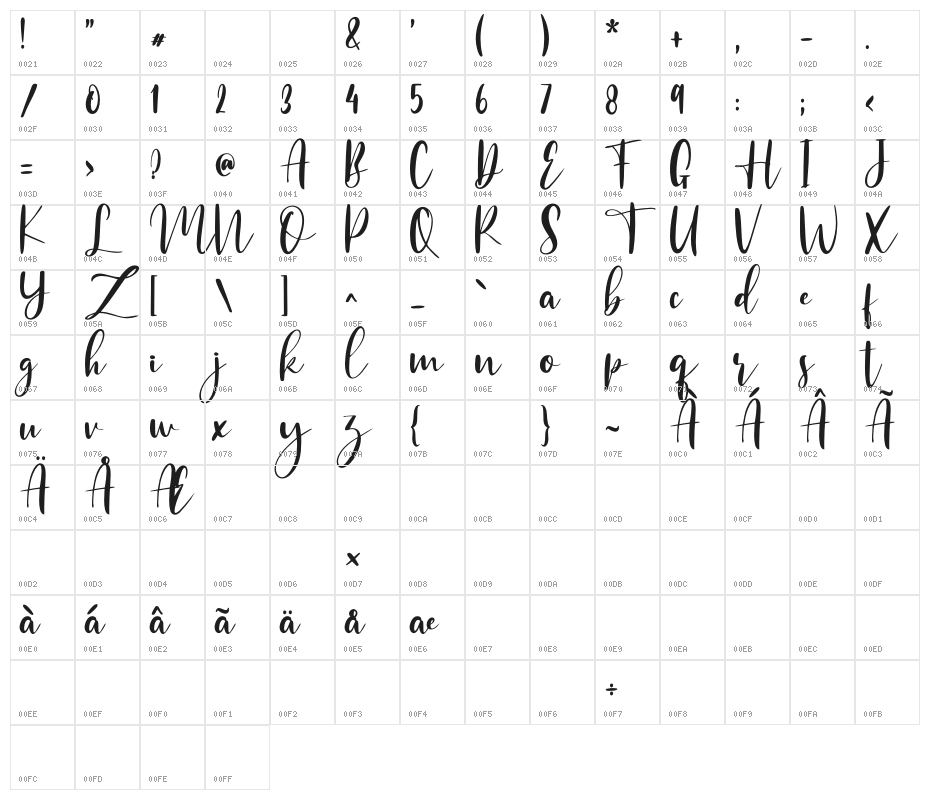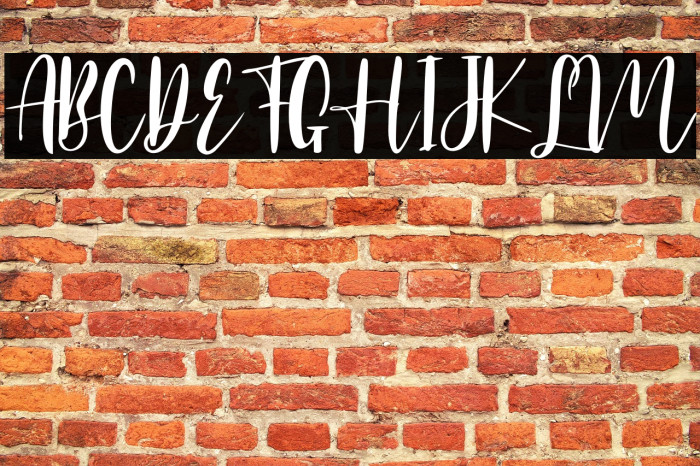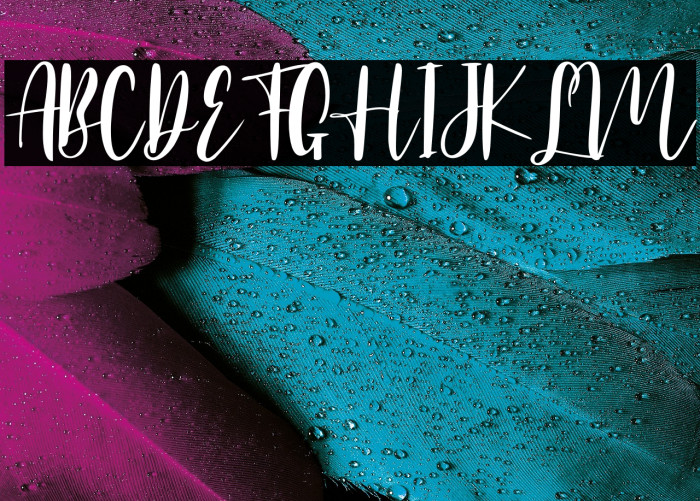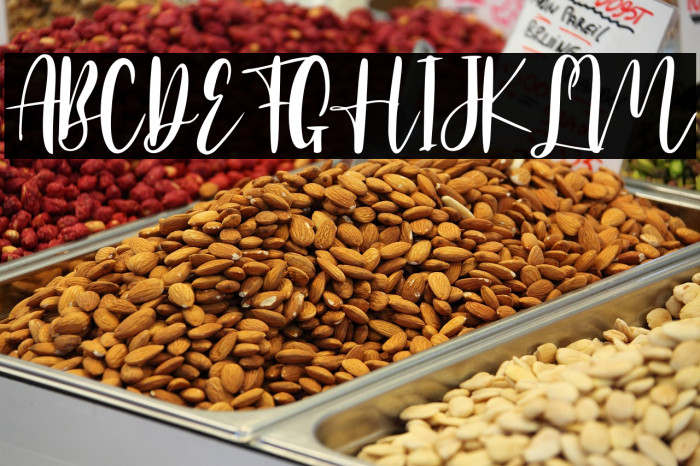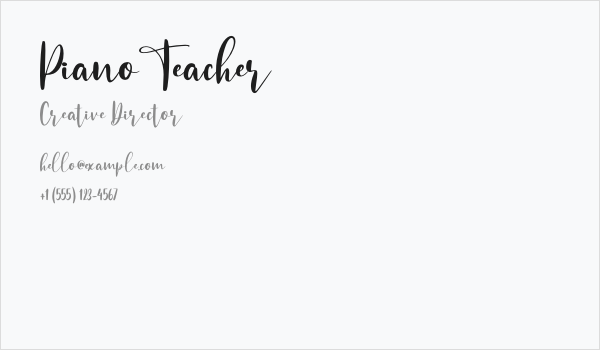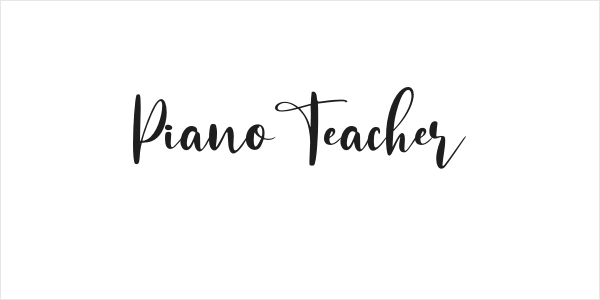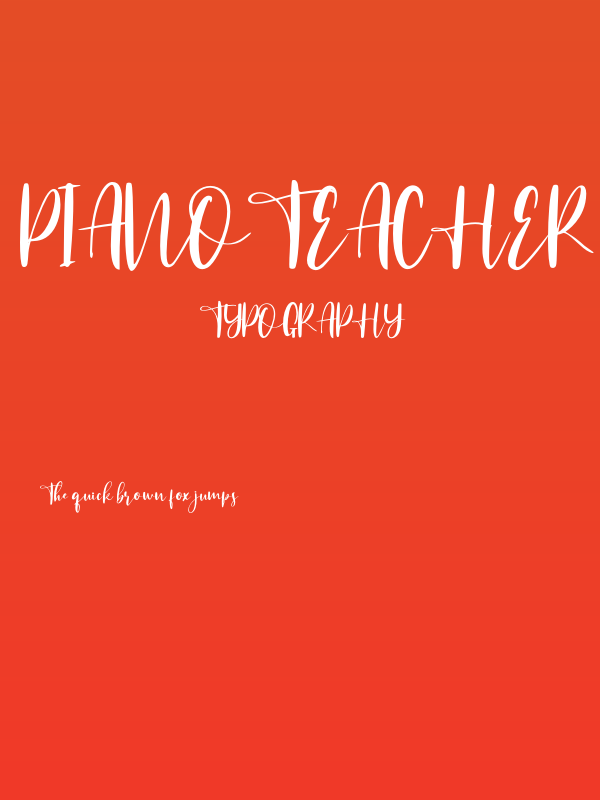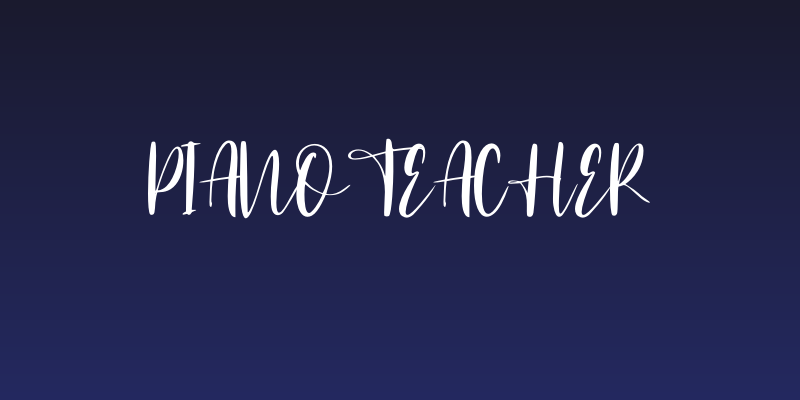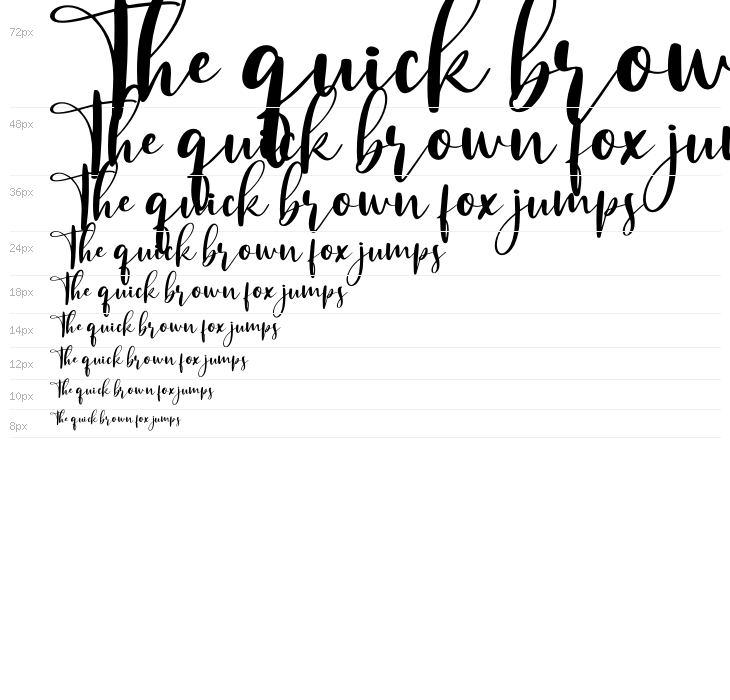
PianoTeacher Font
PianoTeacher Description
This font exudes a lively and expressive handwritten style, characterized by its fluid and dynamic strokes. The uppercase letters are bold and slightly slanted, giving a sense of movement and energy. The lowercase letters maintain a consistent flow with elegant loops and curves, enhancing the font's overall aesthetic. Numbers are bold and clear, matching the style of the letters. Special characters are creatively integrated, maintaining the playful and artistic essence of the font. This font is perfect for projects that require a personal and artistic touch.
| Proposed Projects | Ideal for wedding invitations, greeting cards, branding, and artistic projects requiring a personal touch. |